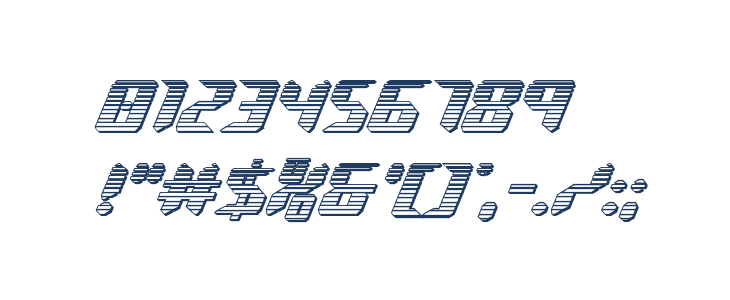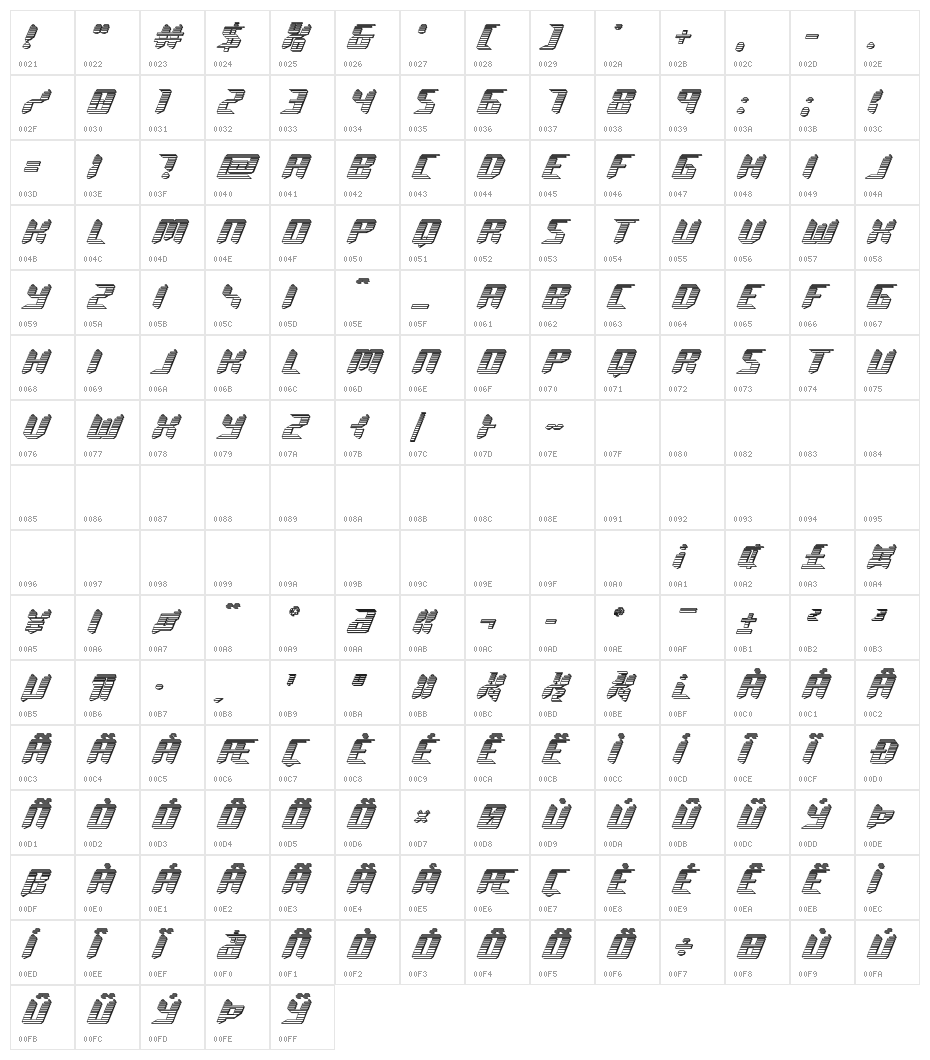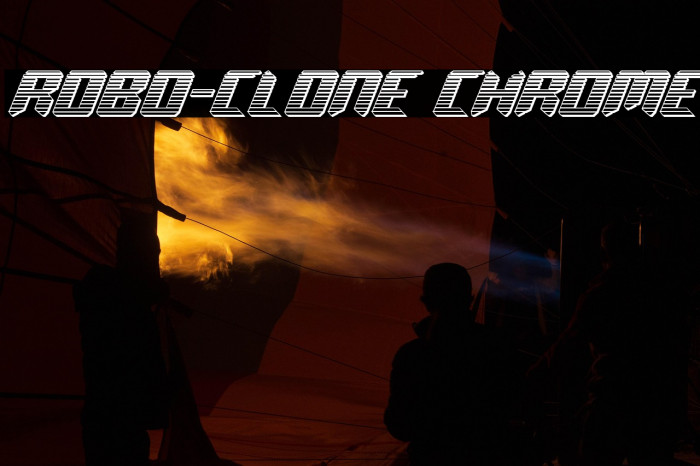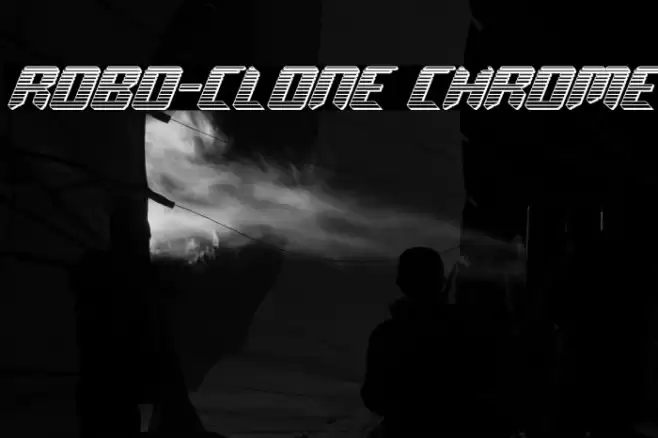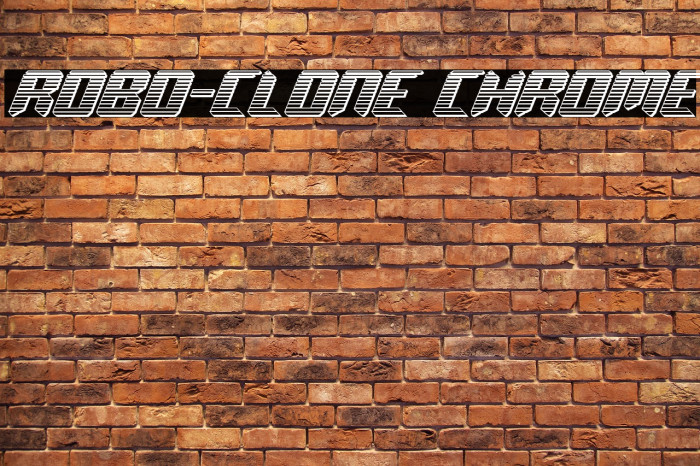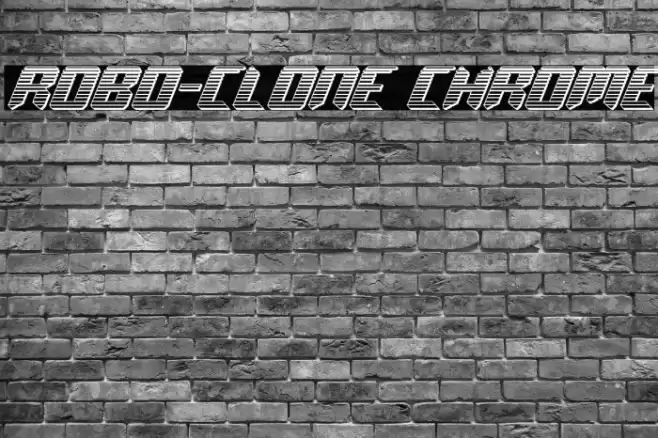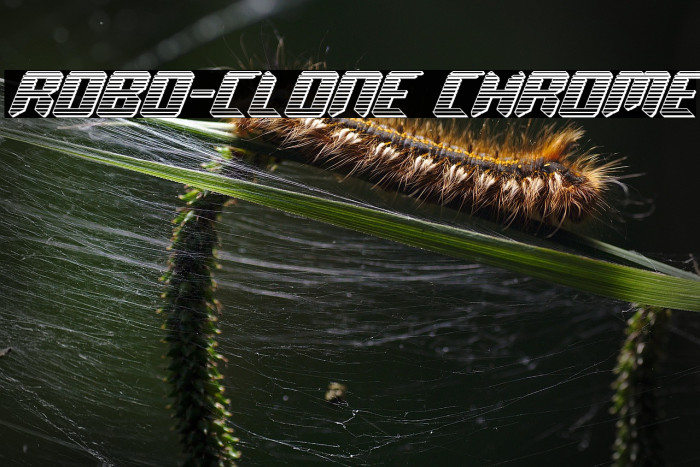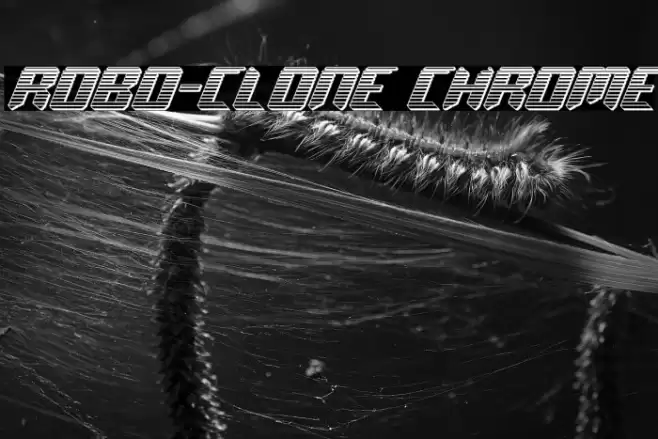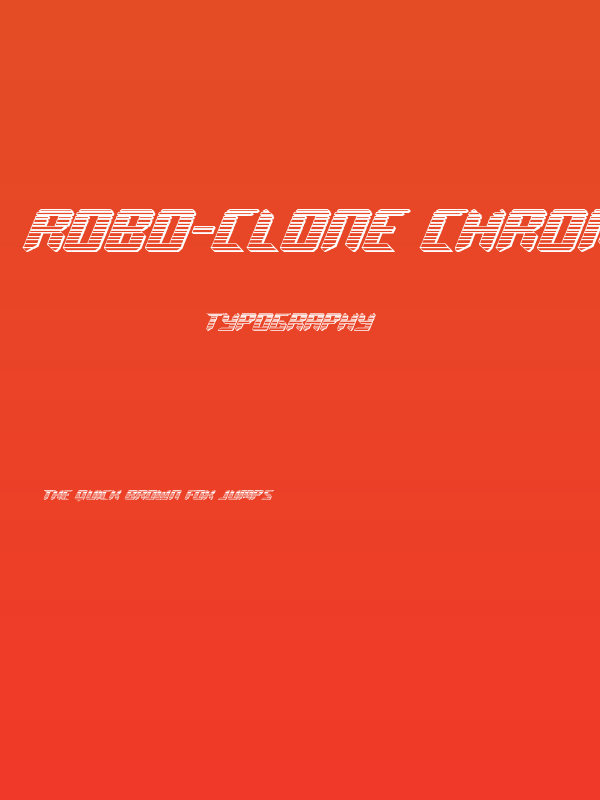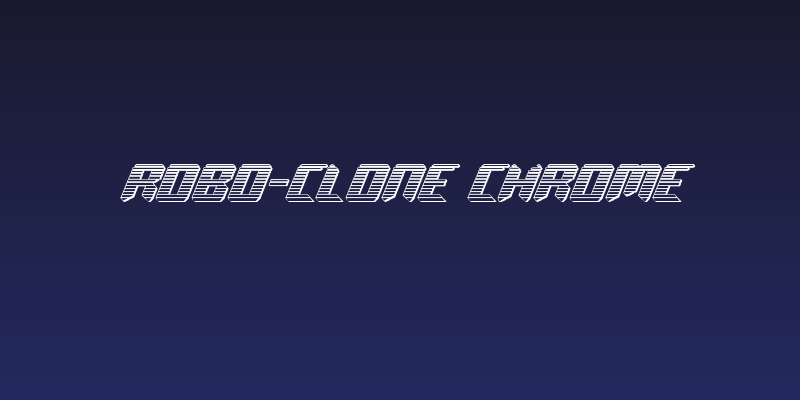
Robo-Clone Chrome Font
Robo-Clone Chrome Description
This font features a futuristic and robotic design with a chrome-like appearance. The characters are bold and angular, with a distinct three-dimensional effect created by parallel lines that suggest depth and movement. Each letter and number is crafted with precision, giving a sense of technological advancement and modernity. The font's unique style makes it stand out, ideal for projects that require a strong visual impact. The special characters are designed to match the overall aesthetic, maintaining consistency throughout the set.
| Proposed Projects | Ideal for sci-fi movie posters, tech company logos, video game titles, and futuristic-themed event invitations. |